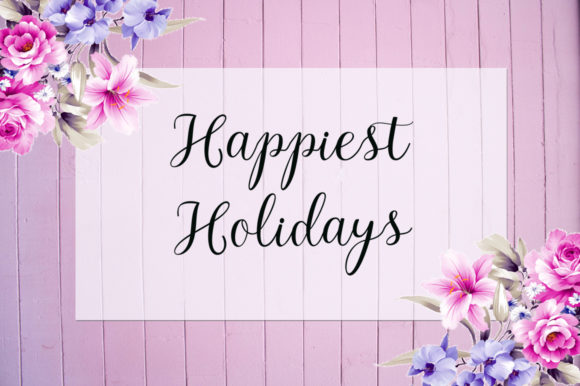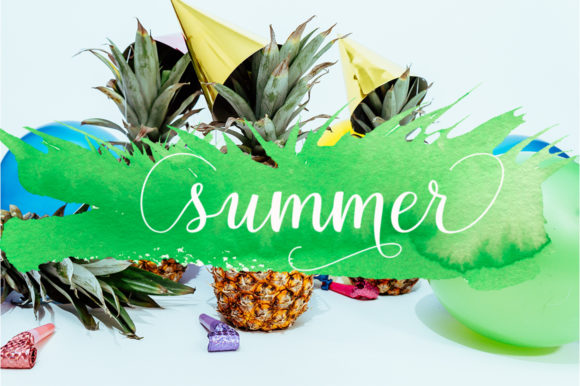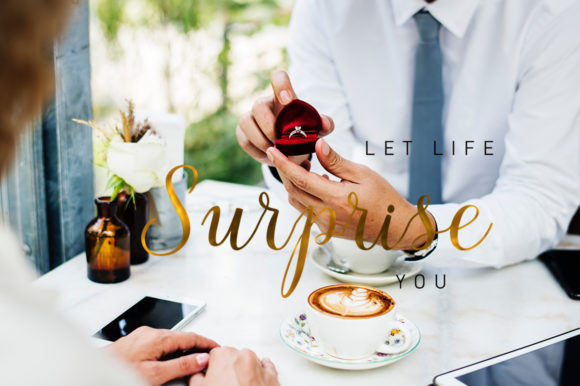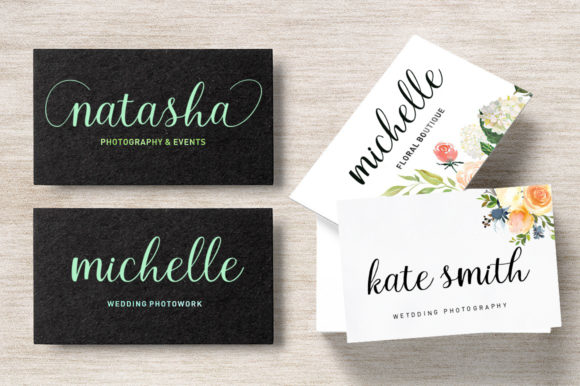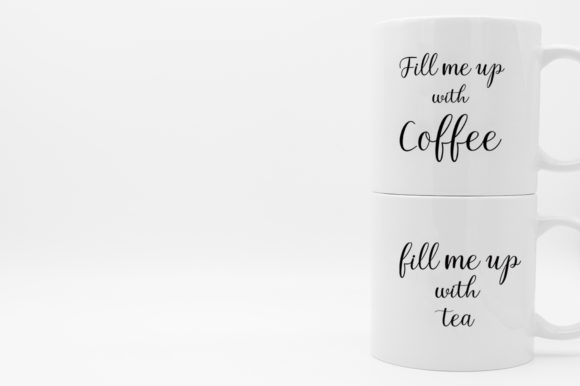
Introduction to My Story Script Font
Remember the moment when you’re brainstorming a creative project and you stumble upon the perfect font that sets the tone for your entire design? That’s exactly what happened to me when I discovered the My Story Script Font. Its trendy and feminine style instantly captured my attention, and I knew I had to share it with fellow designers.
With its unique irregular baseline, the My Story Script Font is a valuable addition to any designer’s toolkit. Whether you’re working on a wedding invitation, a quote, or a logo, this font is sure to bring a touch of elegance and sophistication to your design. And the best part? It’s available for free download, making it an essential design resource for any creative project.
As a designer, I can attest to the importance of having high-quality fonts at your disposal. The My Story Script Font is no exception, offering a transparent background that allows for seamless integration into any design. Its versatility and beauty make it an invaluable asset for any creative project, and I’m excited to share it with you.
Key Features of My Story Script Font
- High-quality, elegant script font ideal for creative projects and design resources.
- Supports a wide range of languages and characters, making it suitable for various design applications.
- Features a unique, cursive style with subtle flair, perfect for adding a touch of sophistication to your designs.
Honest Review: My Story Script Font
As a designer, I’m always on the lookout for high-quality fonts that can elevate my creative projects. My Story Script Font caught my eye, and I decided to give it a try. Here’s my honest review.
- Beautiful, handwritten script style that adds a personal touch to any design
- High-quality font that looks great on both light and dark backgrounds
- Transparent background option available, perfect for creating custom designs
While My Story Script Font is a great addition to any design arsenal, I did notice a few limitations:
- Limited font sizes and styles available (could be a bit more extensive)
- May not be suitable for formal or corporate designs (more suited for creative projects)
Overall, I’m impressed with My Story Script Font. It’s a great free download that can add a personal touch to any design. While it may have some limitations, it’s a solid addition to any design resource library. I’d definitely recommend it for creative projects and personal designs.
Tips for Getting the Most Out of My Story Script Font
For a high-quality design, use My Story Script Font on a transparent background to give your text a clean and elegant look. You can also use it in conjunction with other design resources to create a unique and creative project.
Common Use Cases for My Story Script Font
My Story Script Font is ideal for use in wedding invitations, baby shower invitations, and other special occasion cards. It’s also great for use in social media graphics, blog posts, and other online content where a high-quality, creative font is needed.